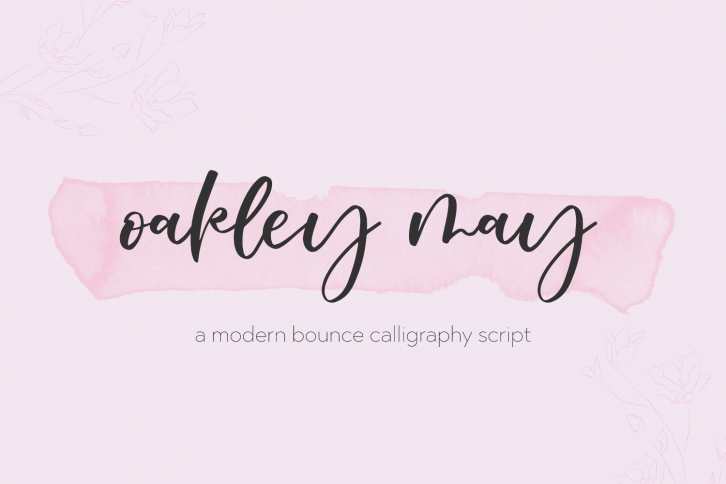
Oakley May Calligraphy is a beautiful font that was designed by BeckMcCormick. It's a great choice for designers and creatives who need such a font. It was released on August 24, 2020 and the file size is 21.90 MB. Oakley May Calligraphy may give a more youthful, expressive and casual look to your project. It is a very beautiful, refined, elegant, and high-quality font.